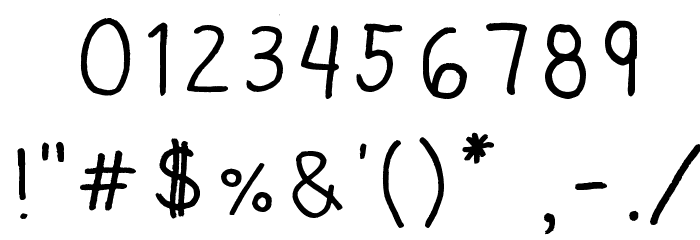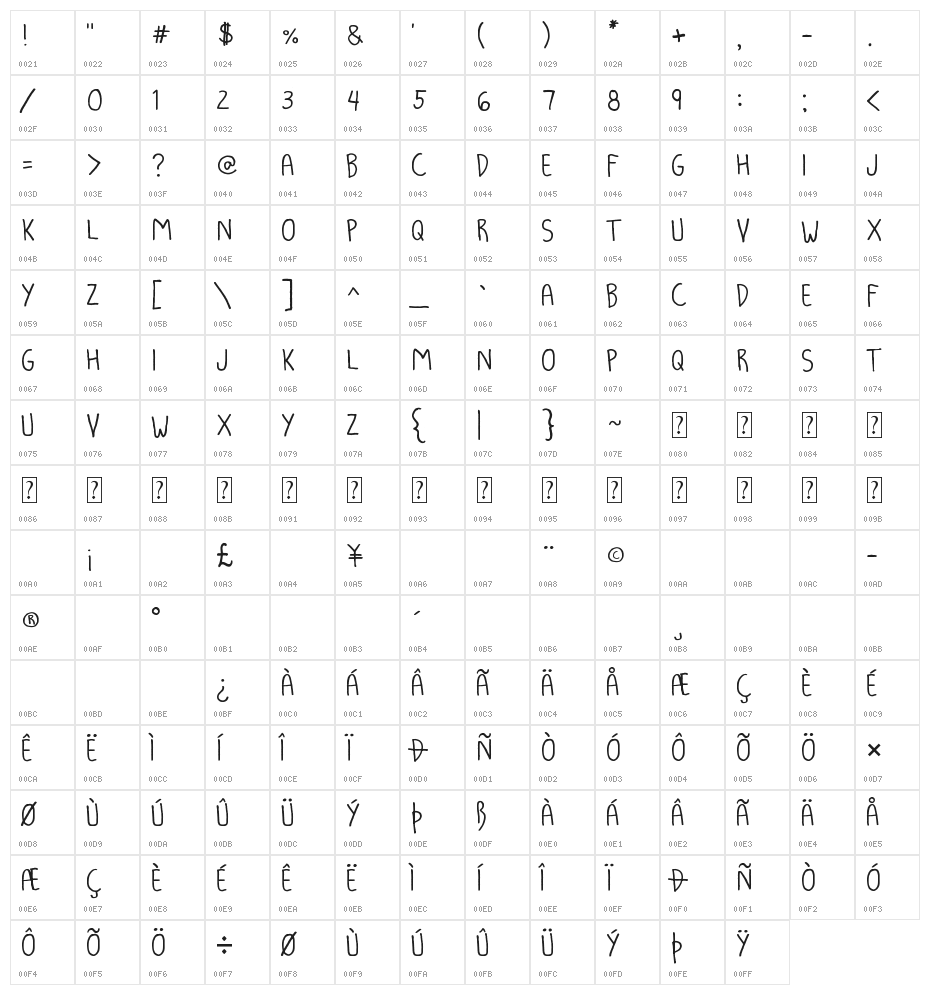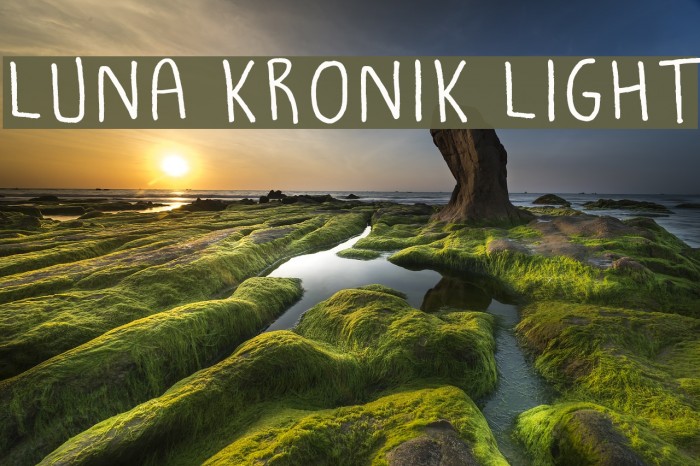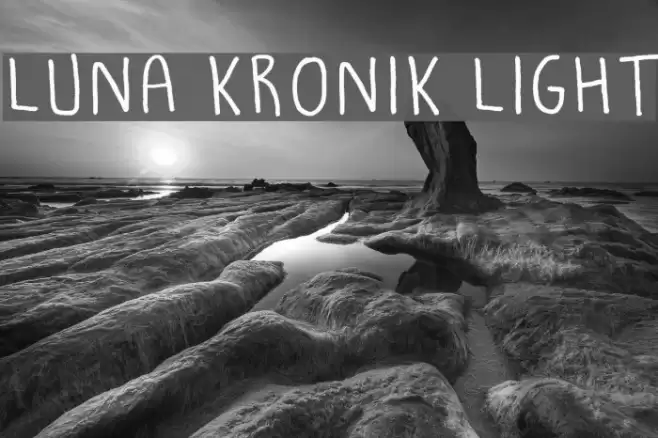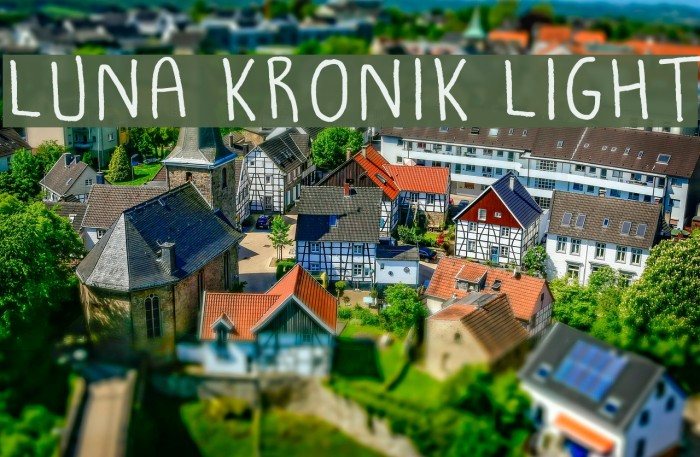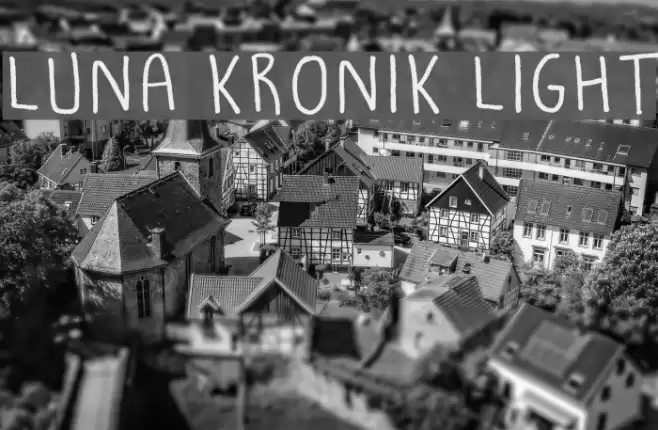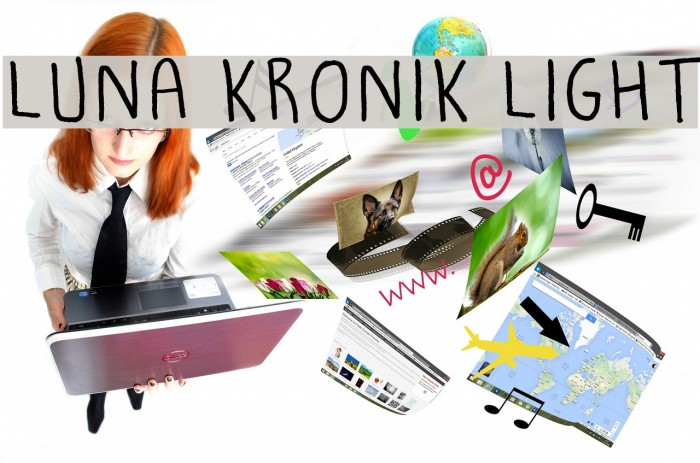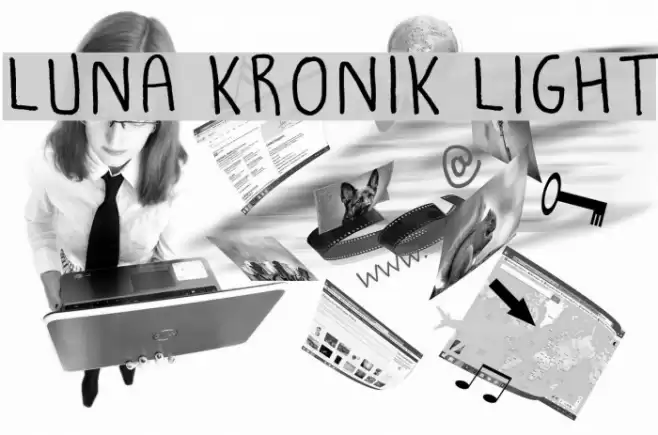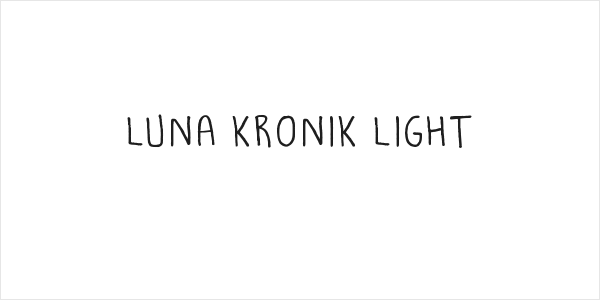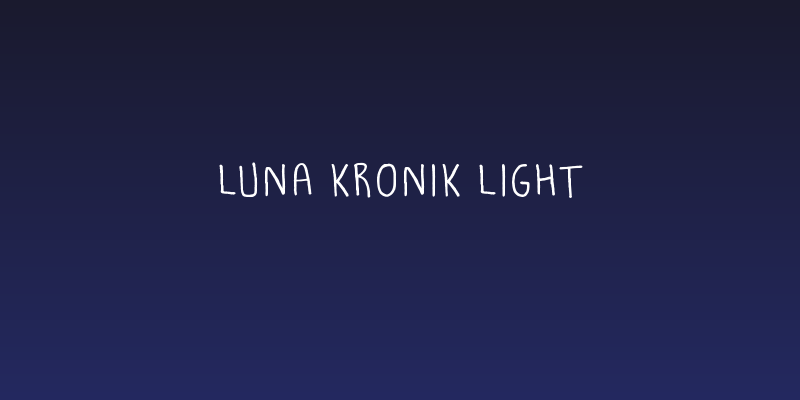
Luna Kronik Light Font
| Style général | Casual |
| Cas d'utilisation | Headlines, Informal text, Creative projects |
| Projets proposés | Ideal for greeting cards, children's books, casual branding, and social media graphics. |
Luna Kronik Light